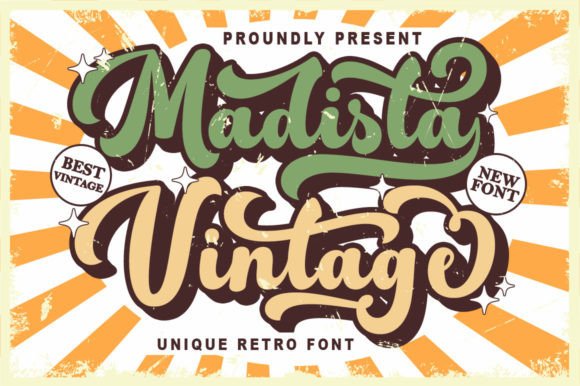
Step into the world of Madista Vintage, a font family that brings the charm of retro typography right to your designs. Inspired by the groovy 70s and 80s, this font exudes a playful and bold spirit that's sure to turn heads.
With its captivating curves and distinct swashes, Madista Vintage adds a touch of nostalgia to your projects. Perfect for vintage and retro designs, this font transports you back in time with its authentic and timeless feel.
Whether you're crafting eye-catching badges, creating memorable logos, or designing vibrant t-shirts, Madista Vintage is your perfect companion. Its versatility extends from posters and branding to packaging, signage, and book covers. Let your creativity take center stage as you explore the endless possibilities that this font family offers.
The beauty of Madista Vintage lies in its versatility. It seamlessly blends the charm of the past with the boldness of modern typography, making it a perfect choice for designers seeking a unique and captivating font.
Experience the ease of use that comes with Madista Vintage. Its PUA encoding allows you to effortlessly access all the playful glyphs and swashes, giving you the freedom to add intricate details and personality to your designs.
Madista Vintage is more than just a font; it's an artistic journey through time. Its charming retro style captivates audiences, while its bold typography commands attention. Embrace the nostalgia and make a statement with every design you create.
As you embark on your creative journey, let Madista Vintage be your guide. Its unique character and timeless appeal will elevate your designs to new heights, leaving a lasting impression on all who encounter your work.